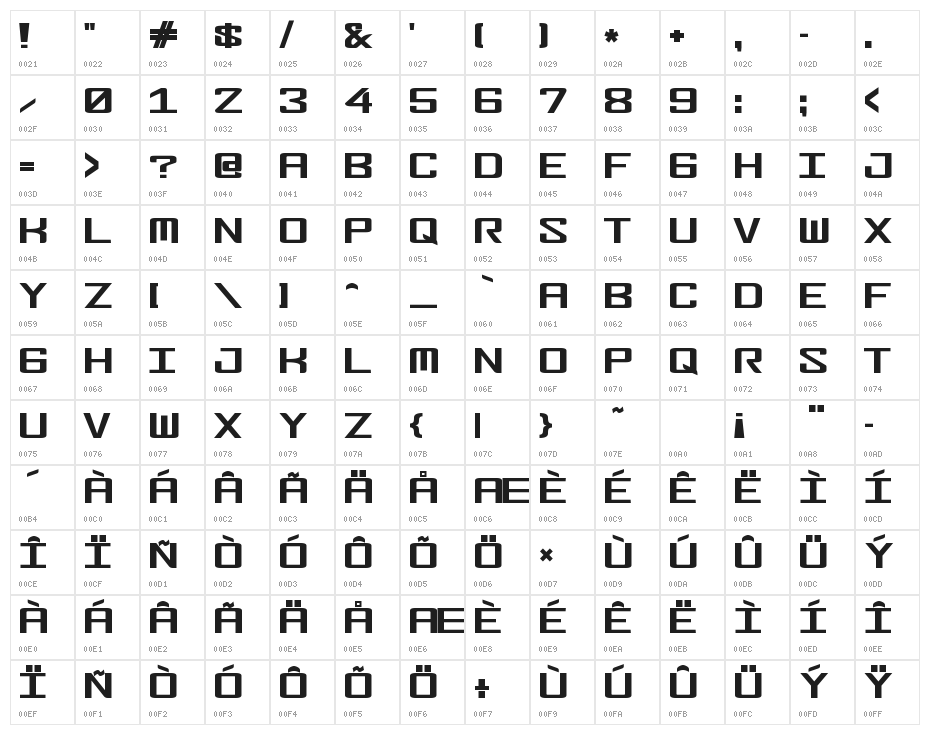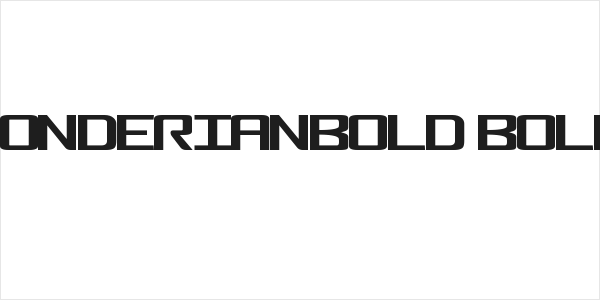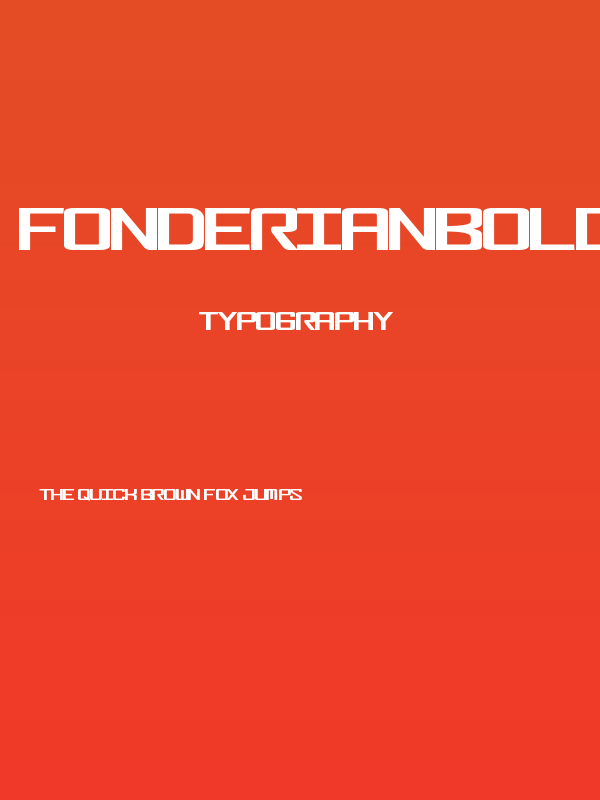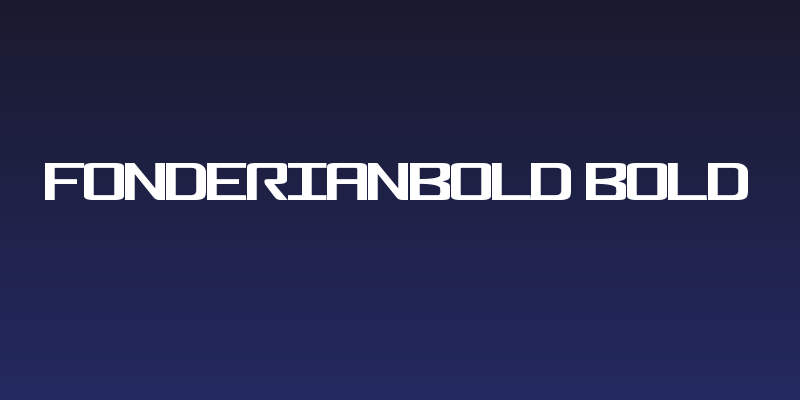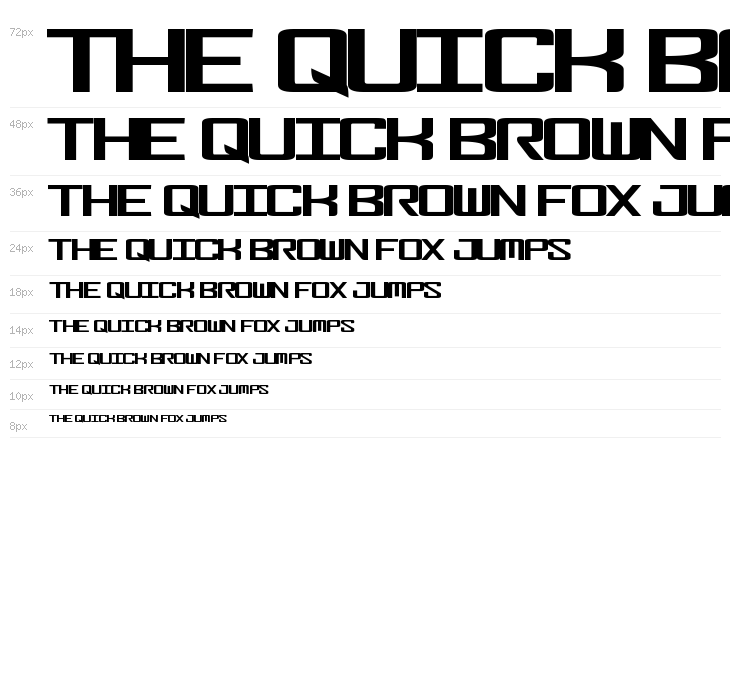
FonderianBold Bold Font
FonderianBold Bold Description
This font exhibits a bold, geometric style with a modern and futuristic aesthetic. The characters are constructed with thick, uniform strokes, giving them a strong and impactful presence. The design features sharp angles and straight lines, creating a sense of precision and structure. The uppercase and lowercase letters maintain a consistent height, contributing to a cohesive appearance. The numerals and special characters are designed to match the boldness and geometric nature of the alphabet, ensuring visual harmony across all elements.
Proposed ProjectsIdeal for technology branding, futuristic posters, video game titles, and digital interfaces.